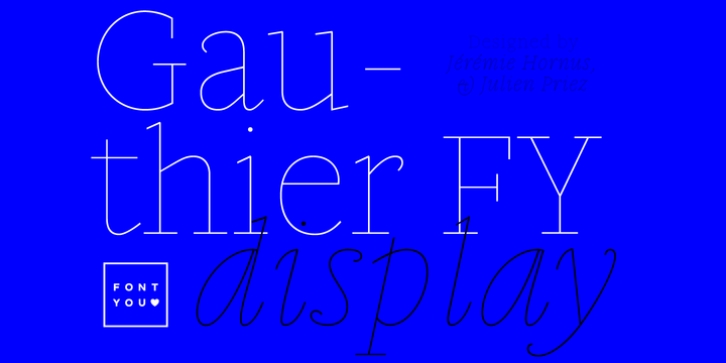
Gauthier FY family is growing! This new font family is a thin monoline version of our old-style serif font Gauthier FY. Also based on Renaissance shapes, these two new hairlines styles will perfectly fit with the existing Gauthier FY to create beautiful contrasts in your designs. Fresh and elegant, this font will certainly find its pleasure in editorial designs, packaging, headlines and posters.